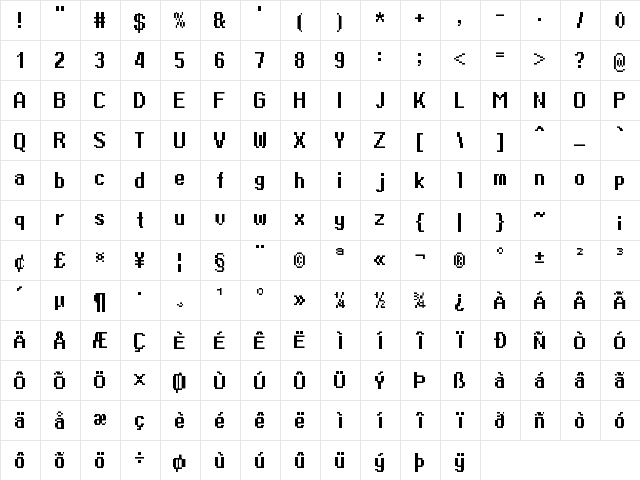
Generic Mobile System Nuevo Regular
| Designer | Jayvee Enaguas (HarvettFox96) |
Design Context for Generic Mobile System Nuevo Typeface
Generic Mobile System Nuevo is a composed and adaptable typeface that performs quietly and consistently across a wide range of design contexts.